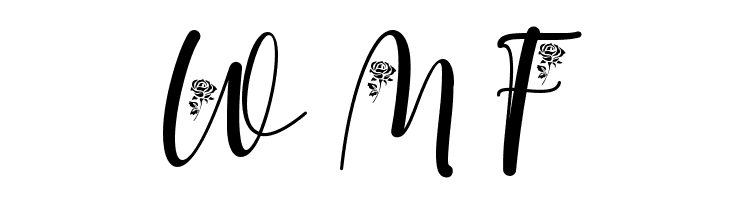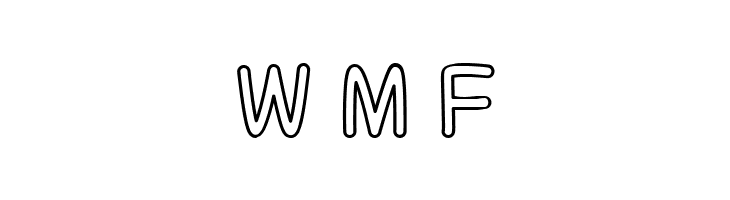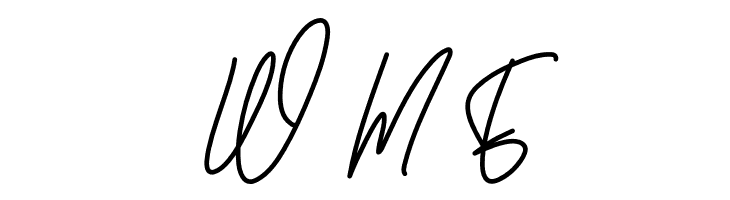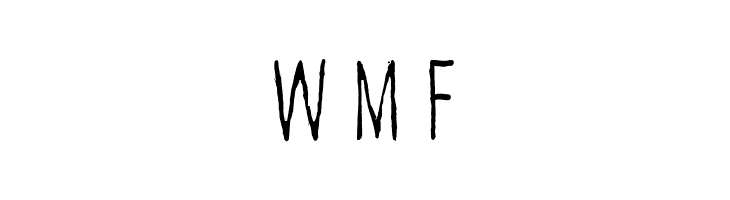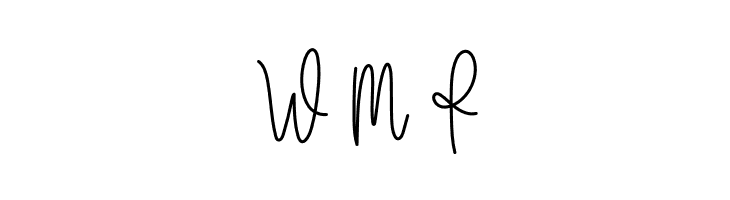
A delicate and elegant script font with flowing, whimsical curves.
A dynamic, flowing script font with a handwritten appearance.
A bold, decorative font with gothic influences and sharp, angular serifs.
A bold, distressed font with a vintage, weathered look.
A bold, decorative font with intricate details and a vintage-modern blend.
A bold, italic handwritten font with fluid, cursive strokes.
A playful, handwritten font with tall, narrow letters and consistent stroke width.
A jagged, distressed font with a chaotic and intense style.
A playful, hand-drawn font with whimsical and artistic curves.
A lively and expressive handwritten font with dynamic strokes.
A bold, geometric font with a three-dimensional, retro-inspired design.
A decorative script font with floral embellishments and elegant, flowing letters.
A bold, energetic font with a fiery, dynamic design.
A bold, hand-drawn font with a playful and energetic style.
A bold, expressive handwritten font with dynamic strokes.
A playful, heart-embellished font with a hand-drawn style.
A bold, brush-stroke font with a rough, textured appearance.
A playful, outlined font with rounded, hollow characters.
A bold, italicized font with strong, slanted letterforms and no ligatures.
A clean, modern sans-serif font with semi-bold weight and no ligatures.
A modern italic font with a clean, slanted style and no ligatures.
A modern sans-serif font with geometric influences and balanced spacing.
A semi-bold, italic font with a modern and clean design, lacking ligatures.
A bold, geometric font with rounded edges and a modern aesthetic.
A bold, modern font with clean lines and strong readability.
A fluid and elegant script font with dynamic cursive letterforms.
A playful, hand-drawn font with tall, narrow letters and a whimsical style.
Elegant cursive script with a handwritten feel.
Bold, rounded, hand-drawn display font with playful character.
Handwritten, playful sans-serif with tall, narrow letters and irregular strokes.
Tall, whimsical handwritten script with thin strokes.
A bold, geometric font with a futuristic and modern aesthetic.